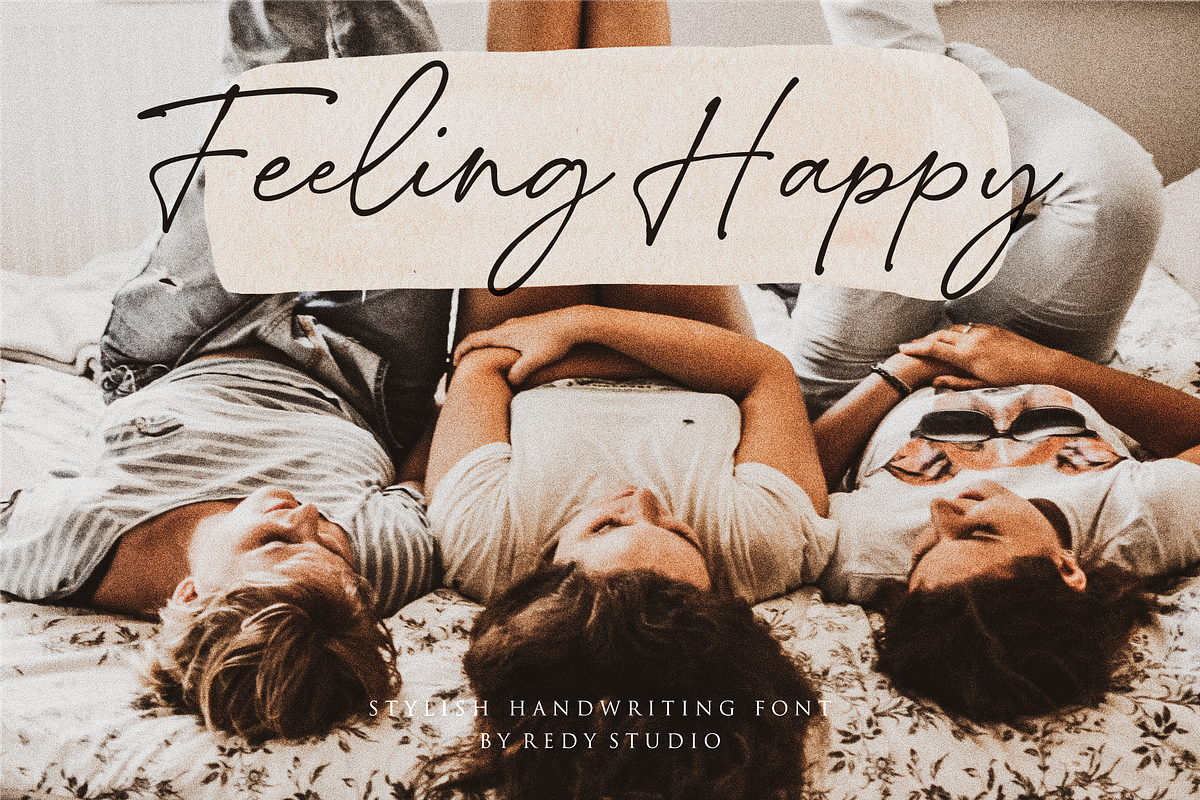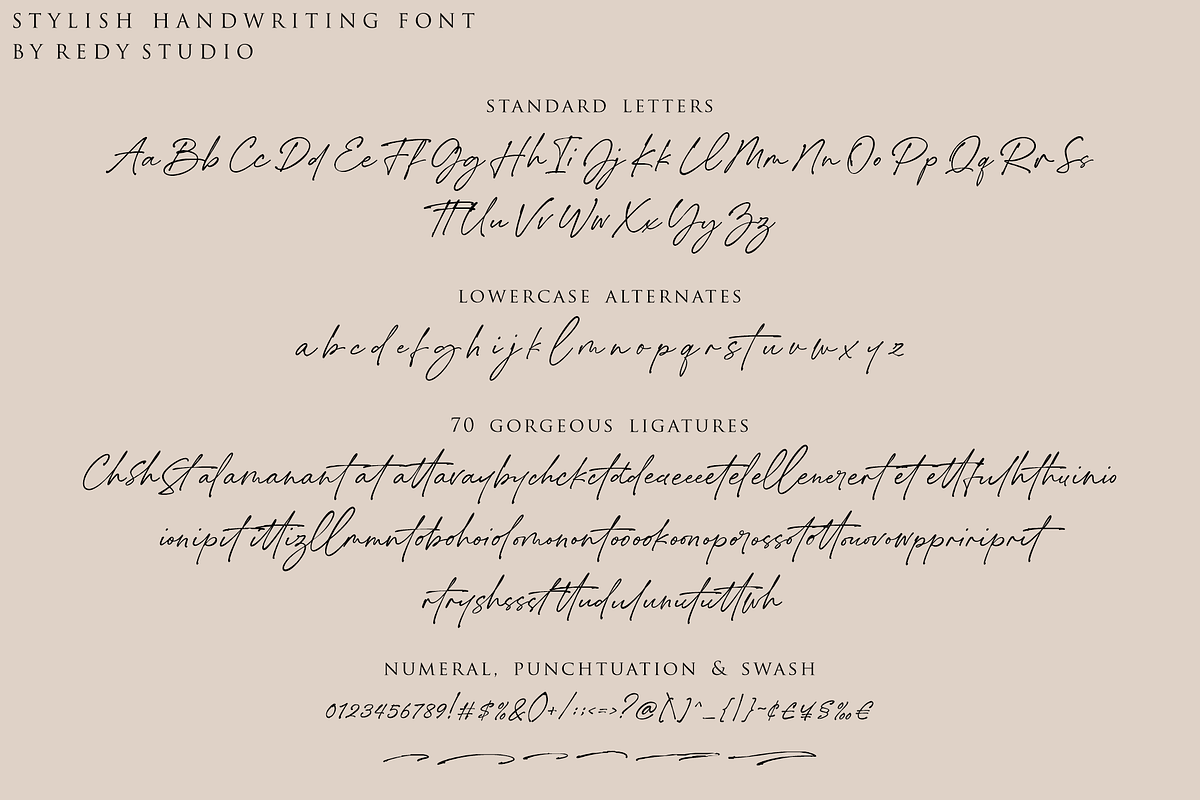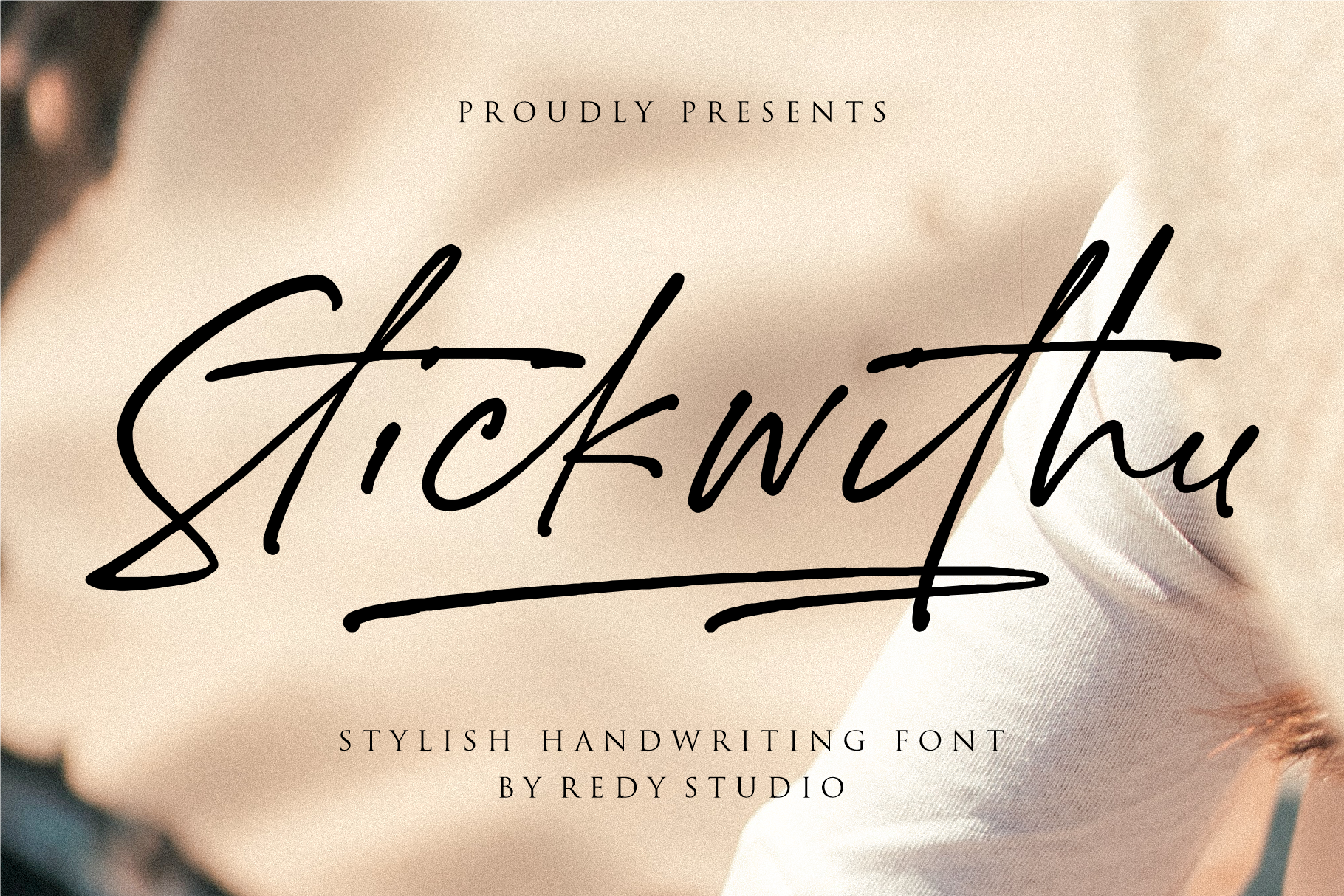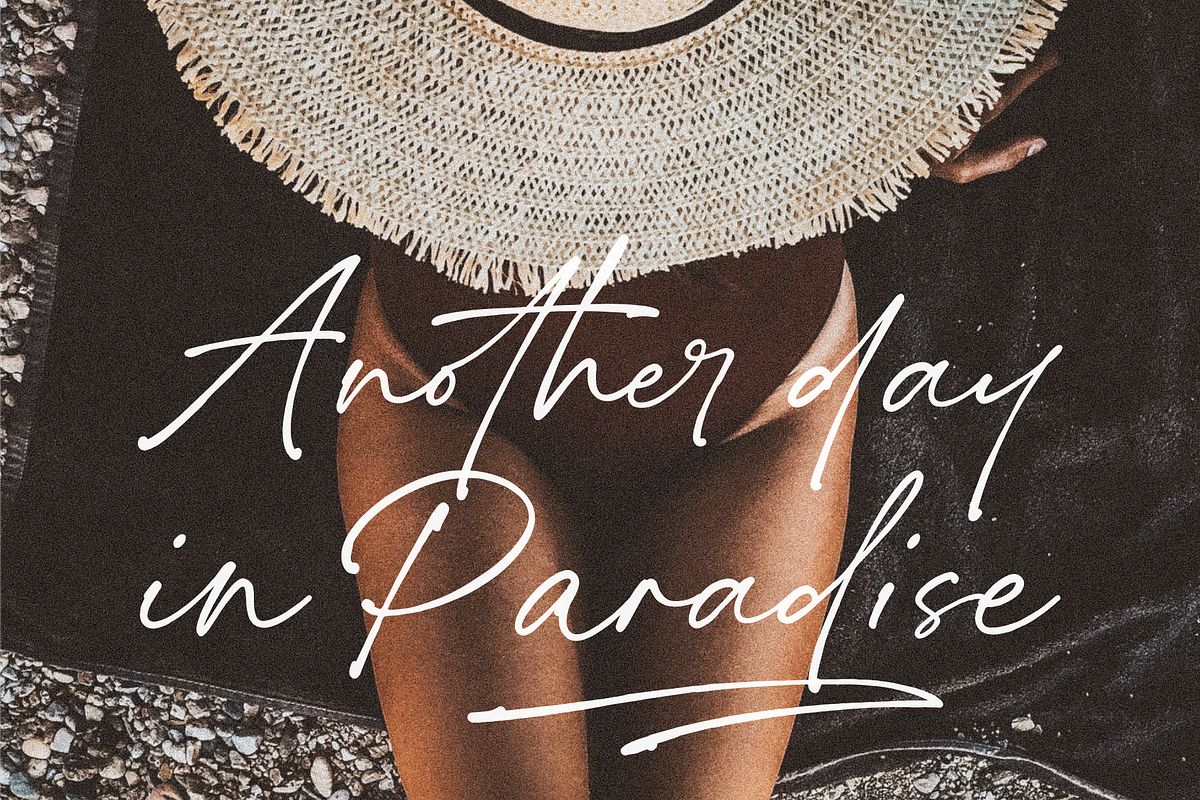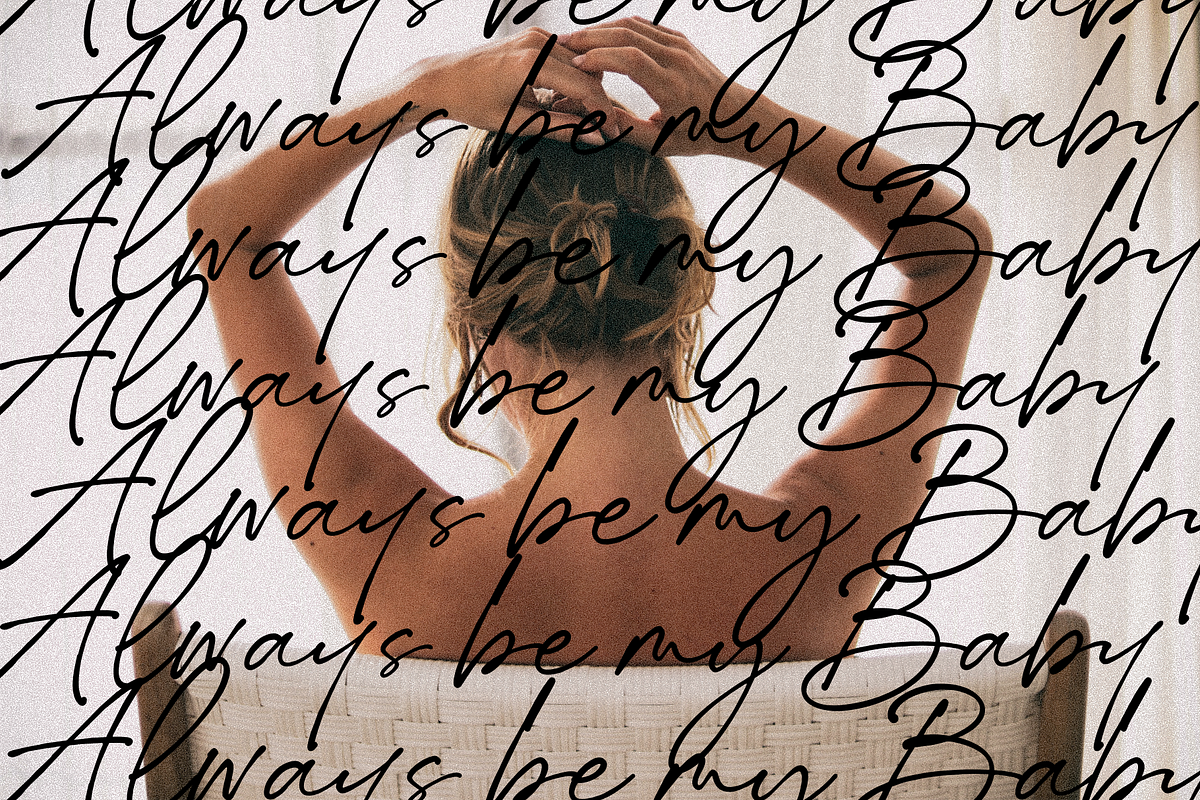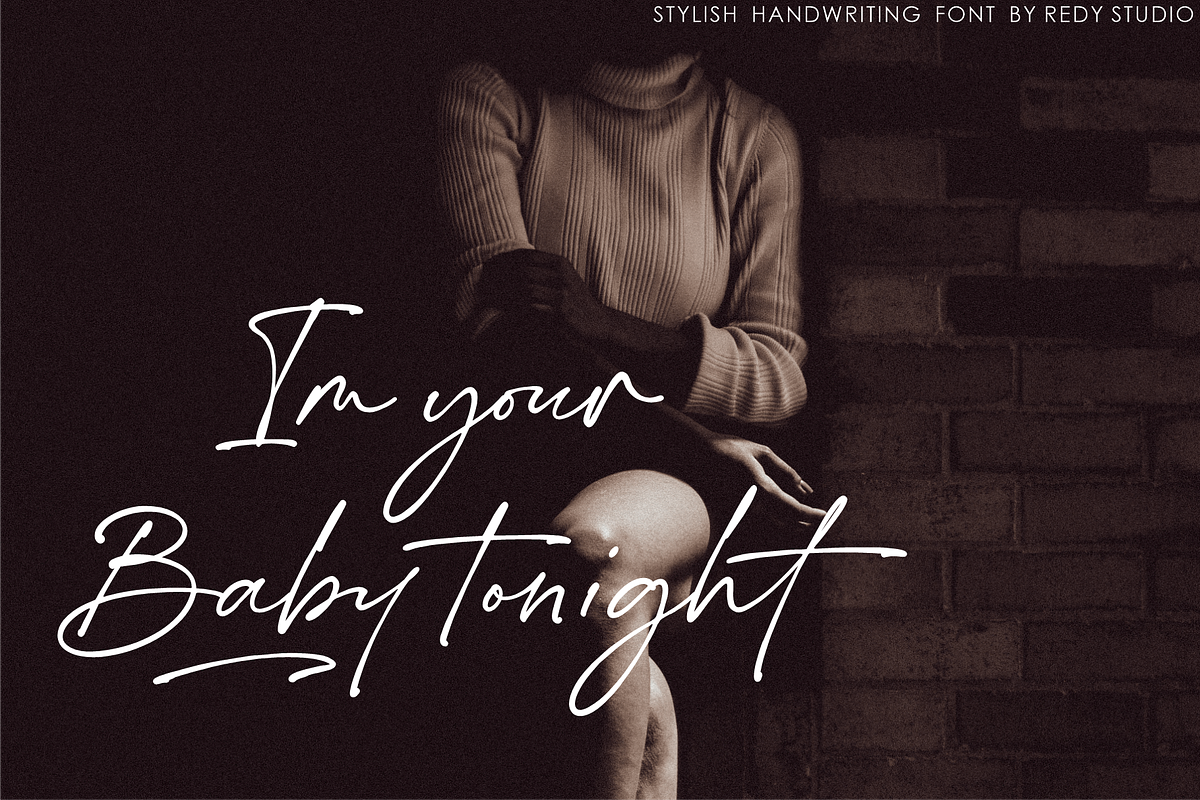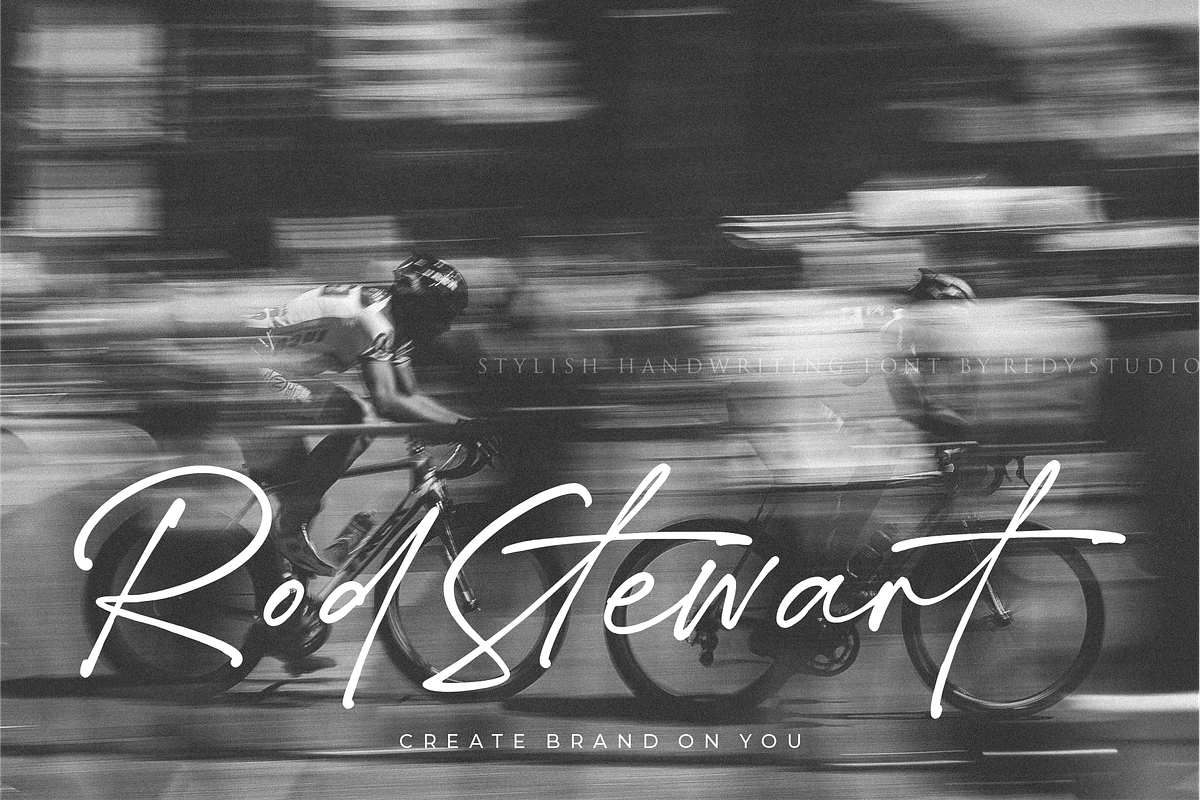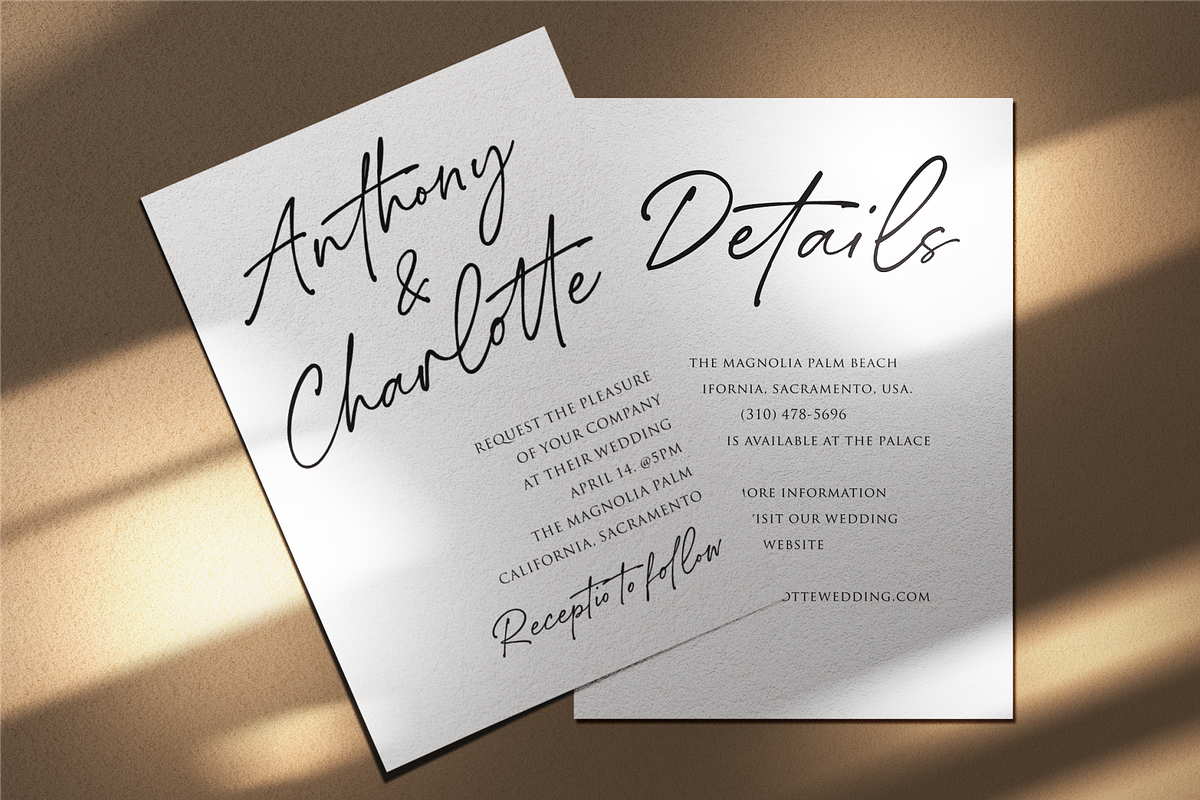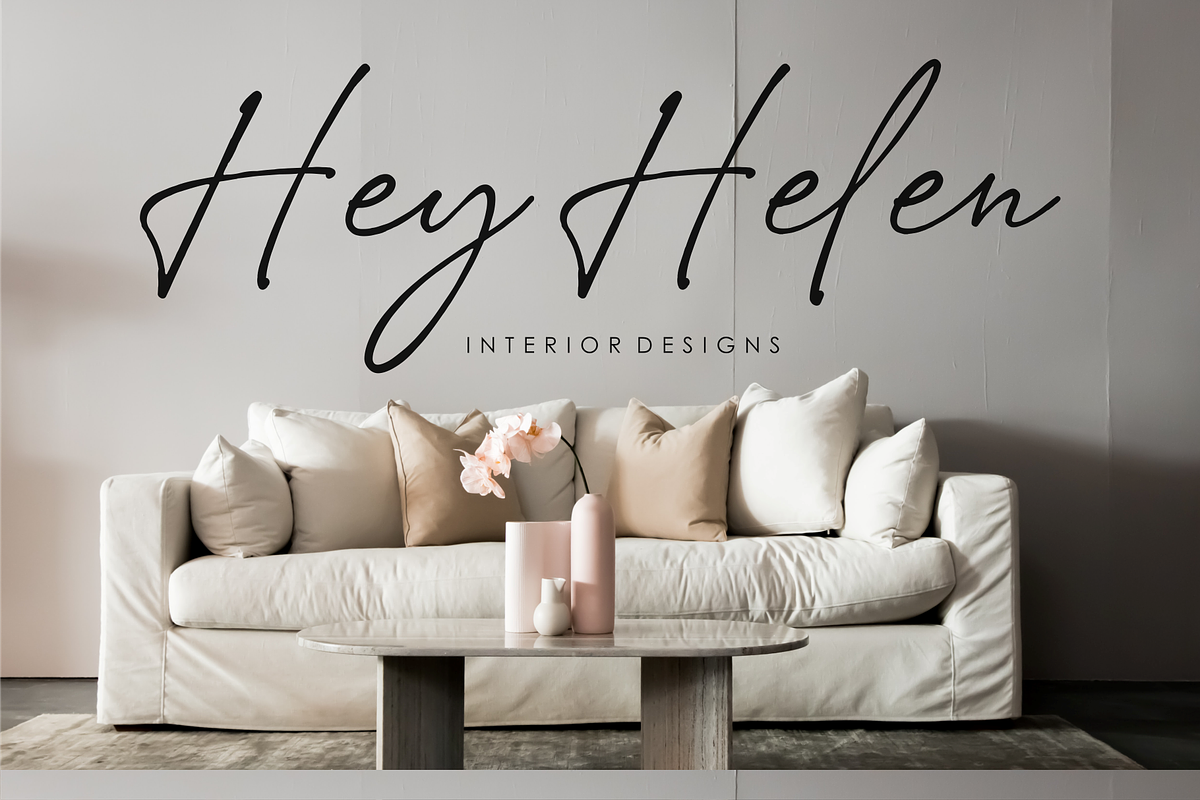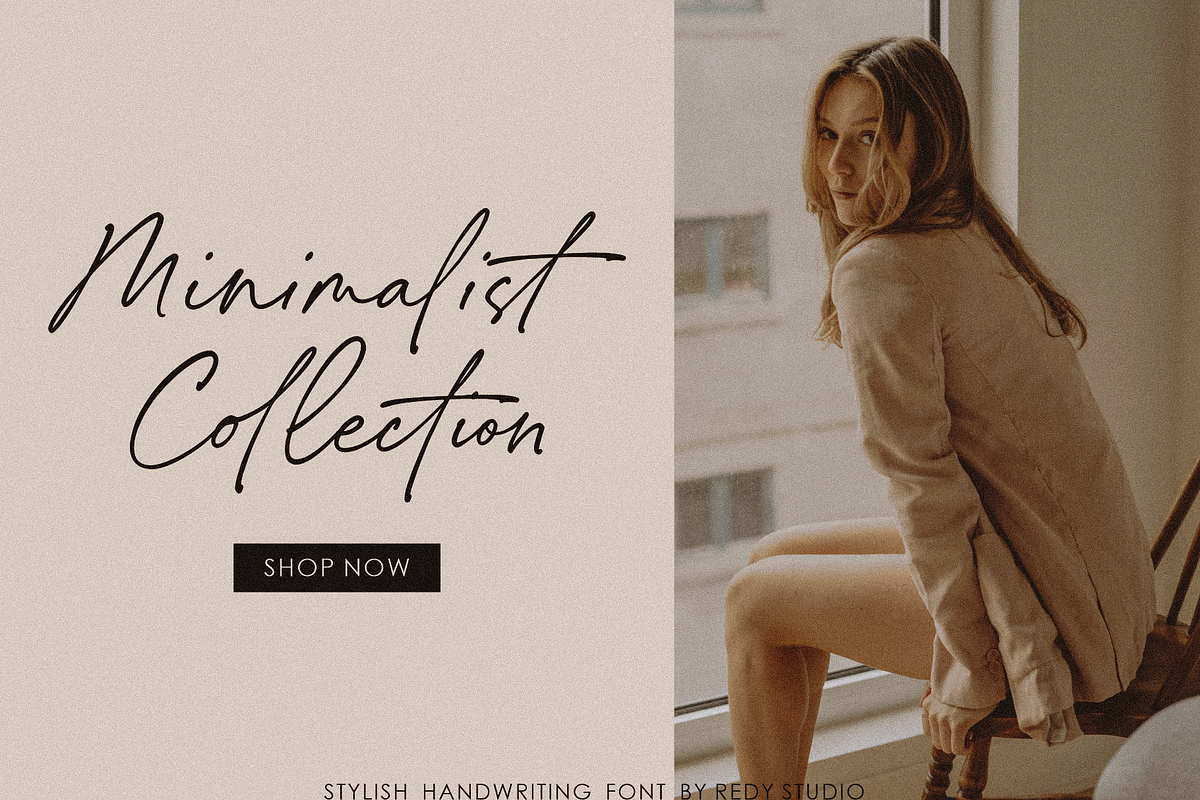
Stickwithu – Handwritten Font
the name Stickwithu was inspired by the title song Stickwitu sung by The Pussycat Dolls which was very popular in the early 2000s. Stickwithu has been designed to make any project look like it was handwritten by hand. a simple yet modern handwritten typeface that’s perfect for adding personality to your typographic design. With its intersecting lines and decorative shapes, Stickwithu gives you the perfect look for use in logos, branding, wedding invitations and stationery, social media posts, and even handwritten quotes. That’s what we’ve done with Stickwithu and want to share with you. We hope you find something unique that will add personality and character to your designs.
Stickwithu features:
- A full set of upper & lowercase characters
- 70 Gorgeous ligatures: Ch Sh St al am an ant at att av ay by ch ck ct dd ea ee eet el ell en er ert et ett ful ht hu in io ion ip it itt iz ll mm nt ob oh oi ol om on ont oo ook oon op or oss ot ott ou ov ow pp ri rip rit rt ry sh ss st tt ud ulun ut utt wh.
- Alternates in lowercase
- Multilingual symbols